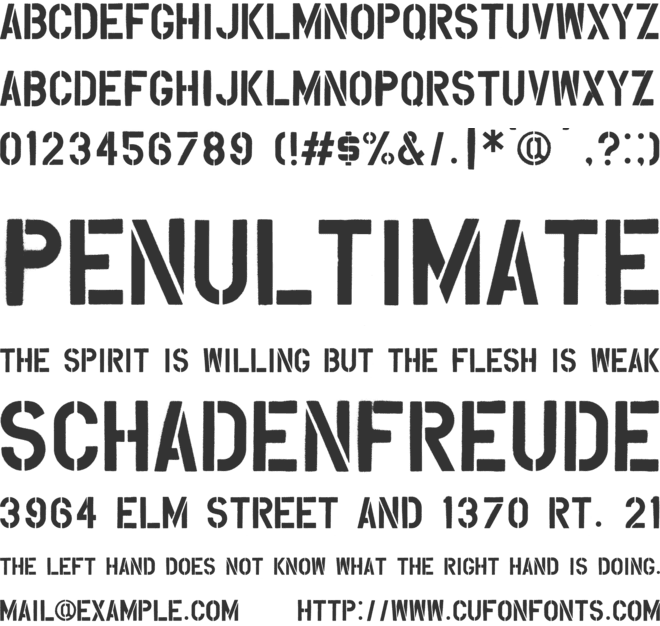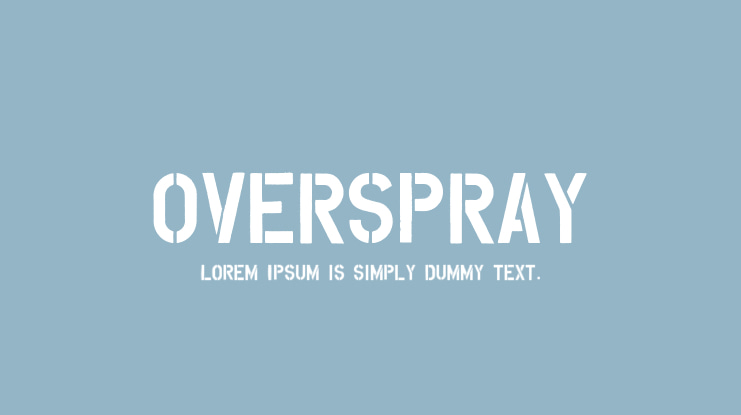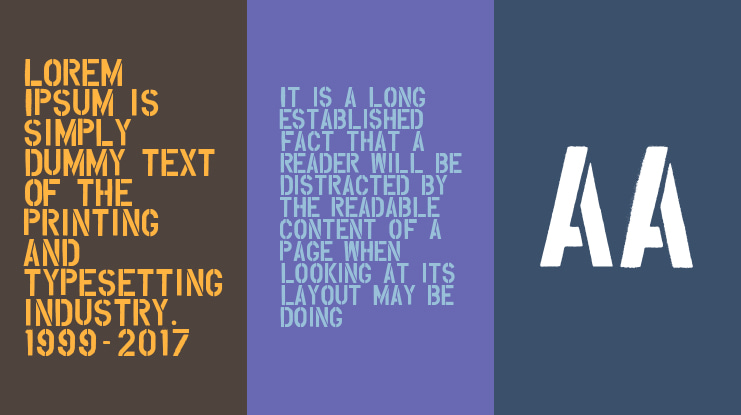
This is a spray painted stencil font. It has alternative glyphs for common double letters like EE, TT, LL etc. The font also contains 7 stencil lines to use between letters that can be added by using the Glyph Palette in Adobe InDesign or Illustrator. Cheers!